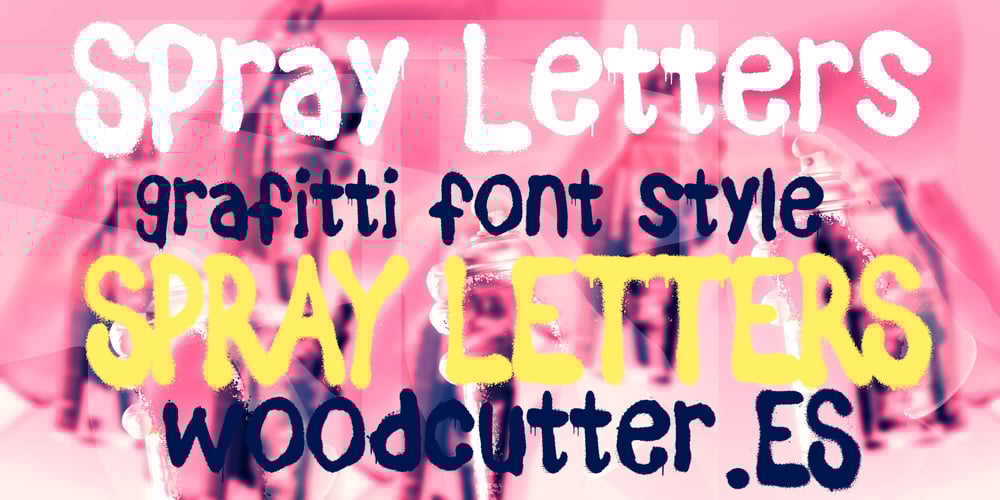
Spray Letters
Spray Letters font
Spray Letters Font Family was designed by Jordi Manero and published by Woodcutter. Spray Letters contains 1 styles and family package options. “Spray Letters font features uppercase, lowercase, and accented characters, mimicking spray-painted letters with rough strokes. Ideal for projects seeking to convey a raw, urban aesthetic, this font adds an authentic street art vibe. Perfect for posters, graffiti-inspired designs, and branding, ‘Spray Letters’ brings a gritty edge to your projects, capturing the essence of urban expression with its rough, rugged appearance.”